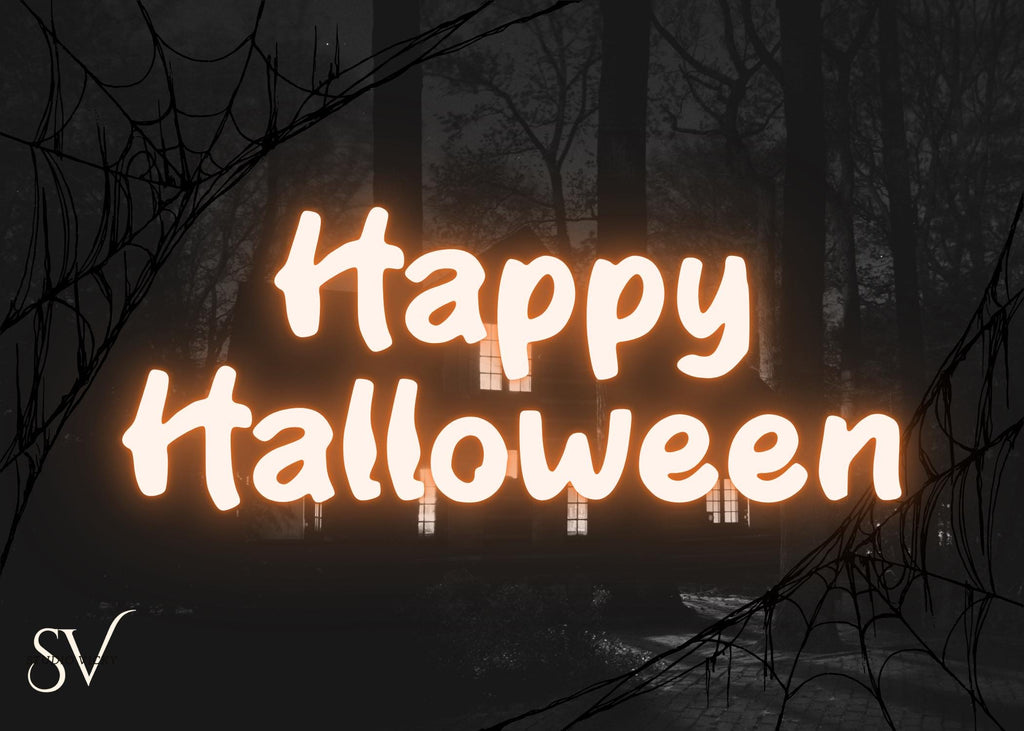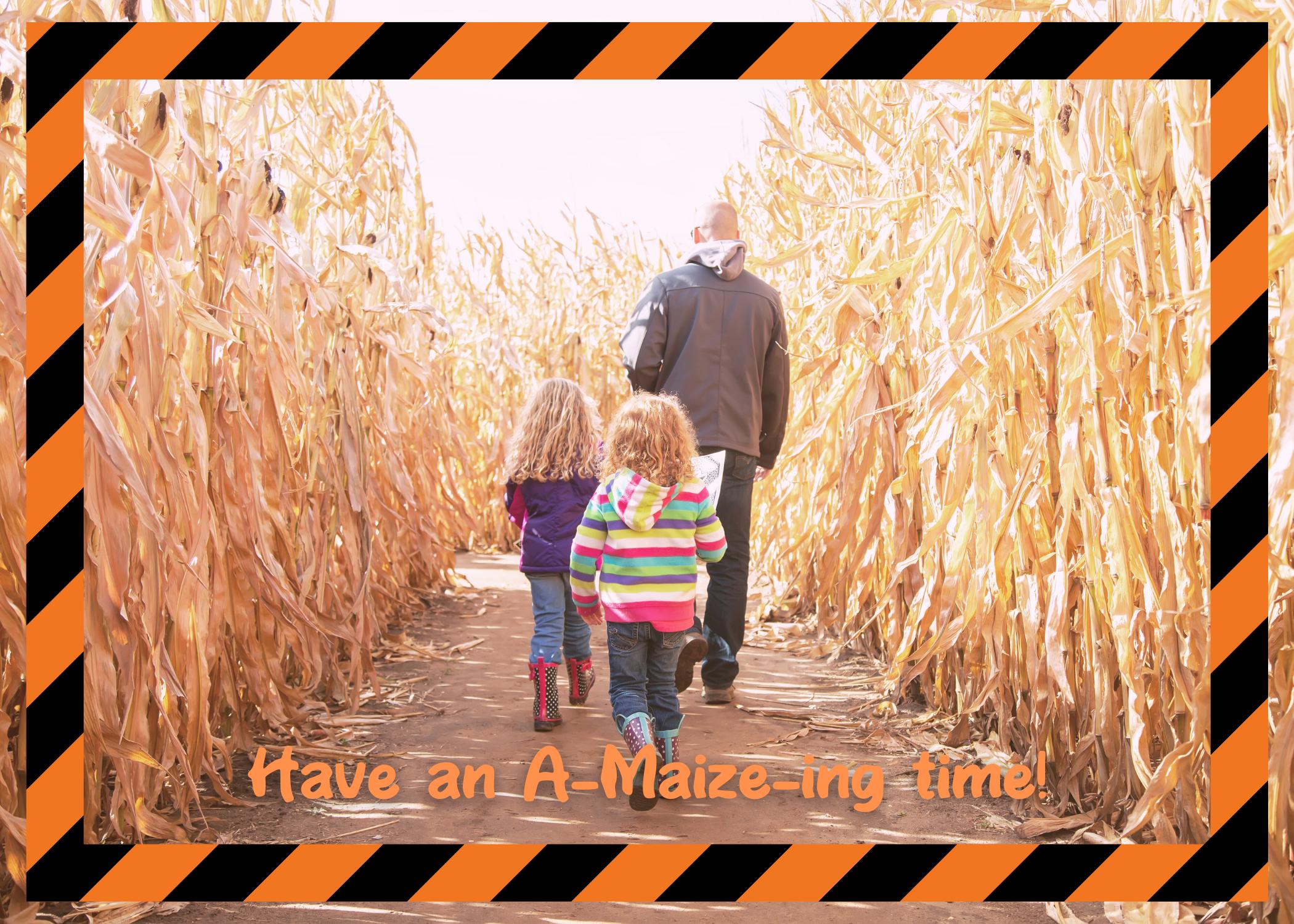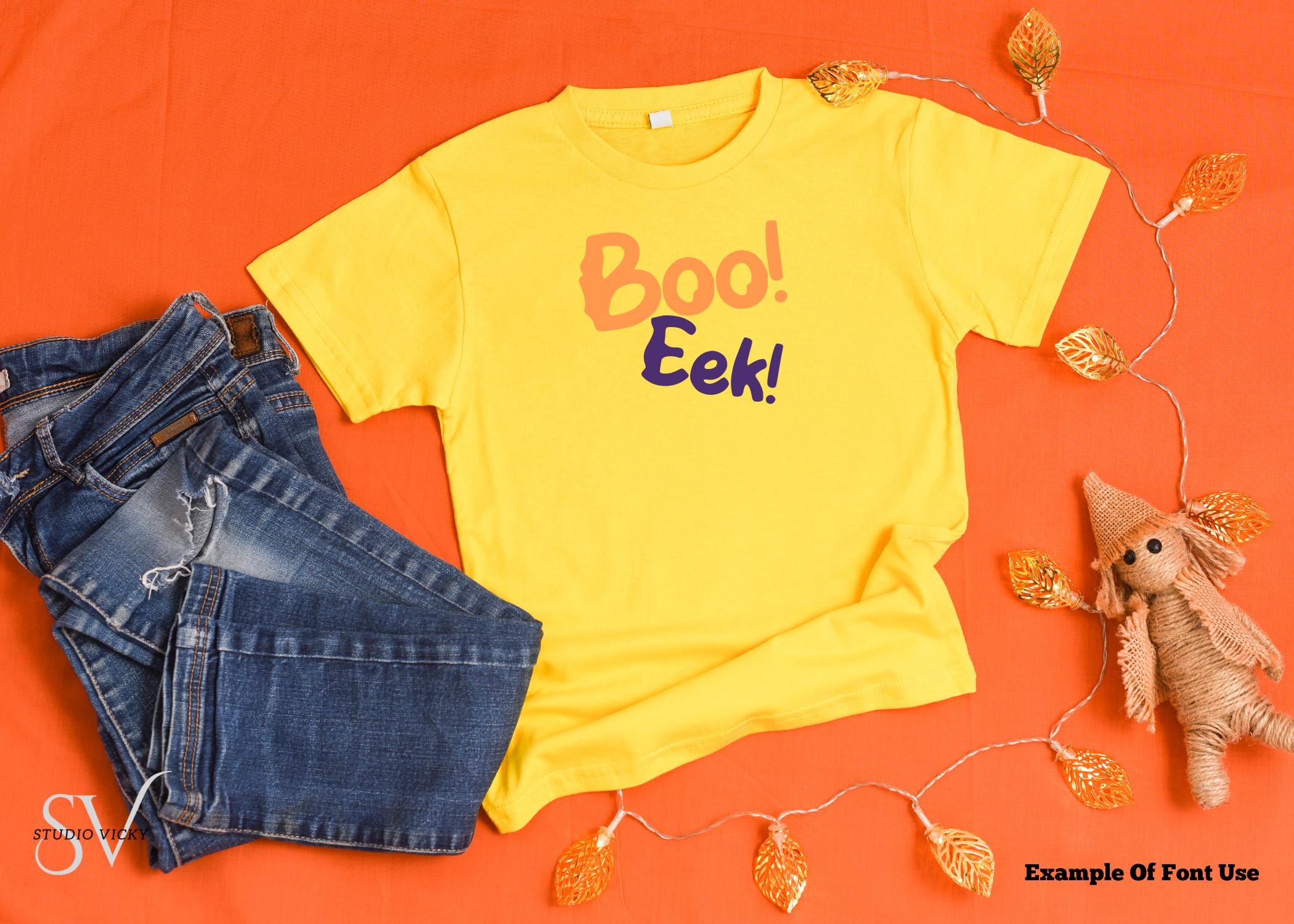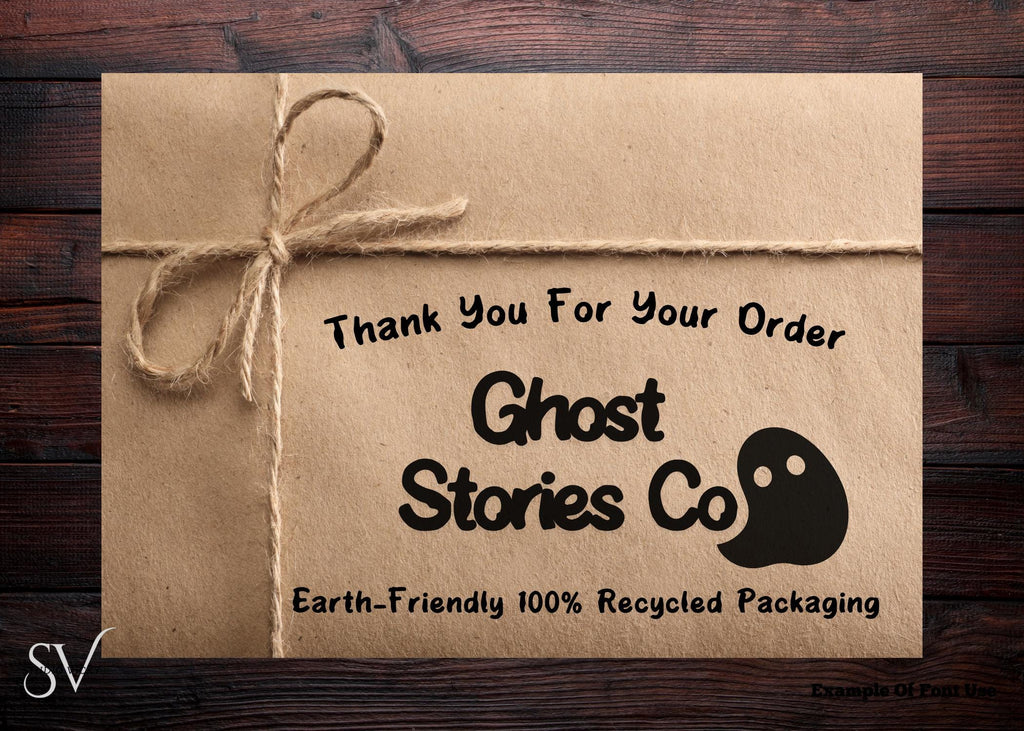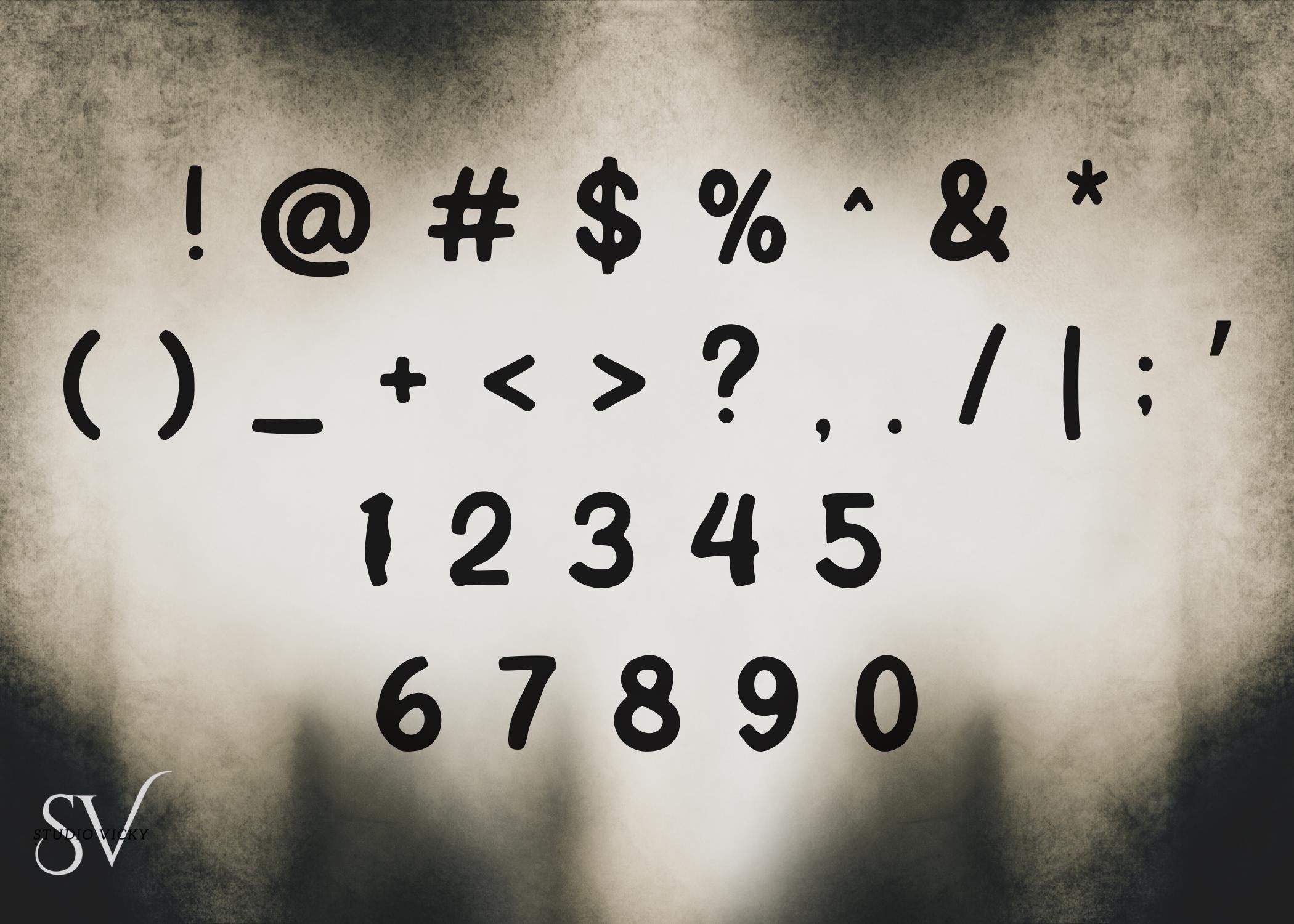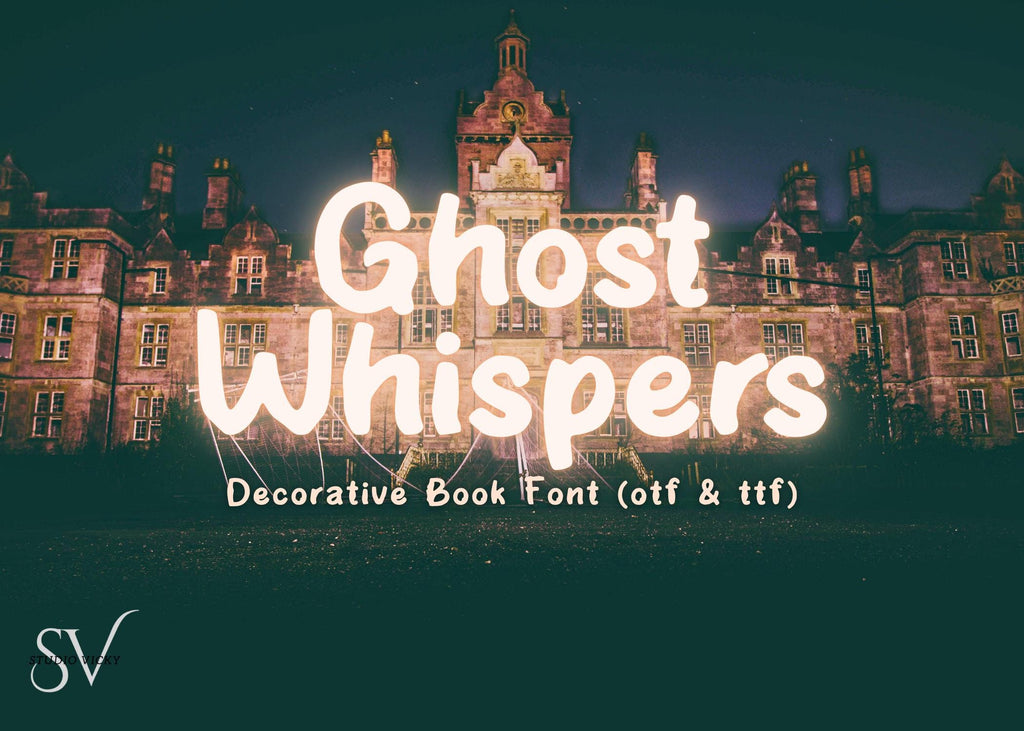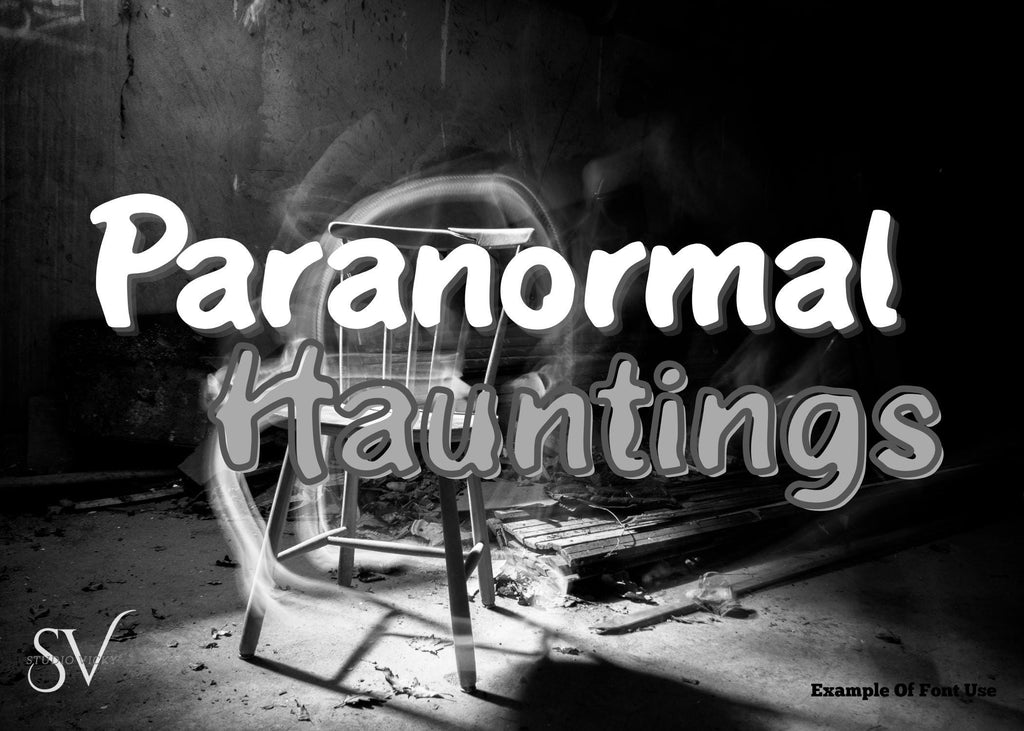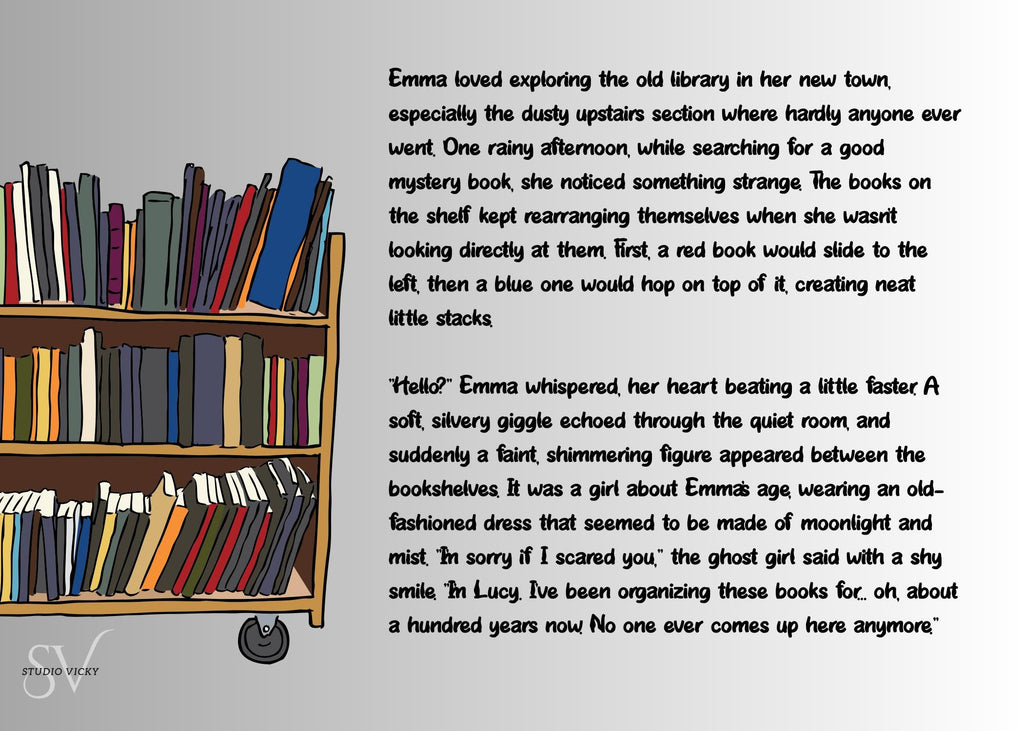
Eerie elegance meets storybook charm in Ghost Whispers—a hauntingly beautiful decorative font that feels like it belongs in the pages of a ghost story or an old witch’s journal. With slightly distressed curves and vintage book styling, this font is perfect for Halloween crafts, gothic logos, spooky party invites, potion labels, and dark fantasy projects.
Whether you’re designing spellbooks, haunted house signs, or creepy cute planner pages, Ghost Whispers adds that extra dose of atmospheric flair your project craves.
🕯️ Features:
Spooky, storybook-inspired design
Great for Halloween and gothic themes
Smooth enough for printing, cutting, or digital use